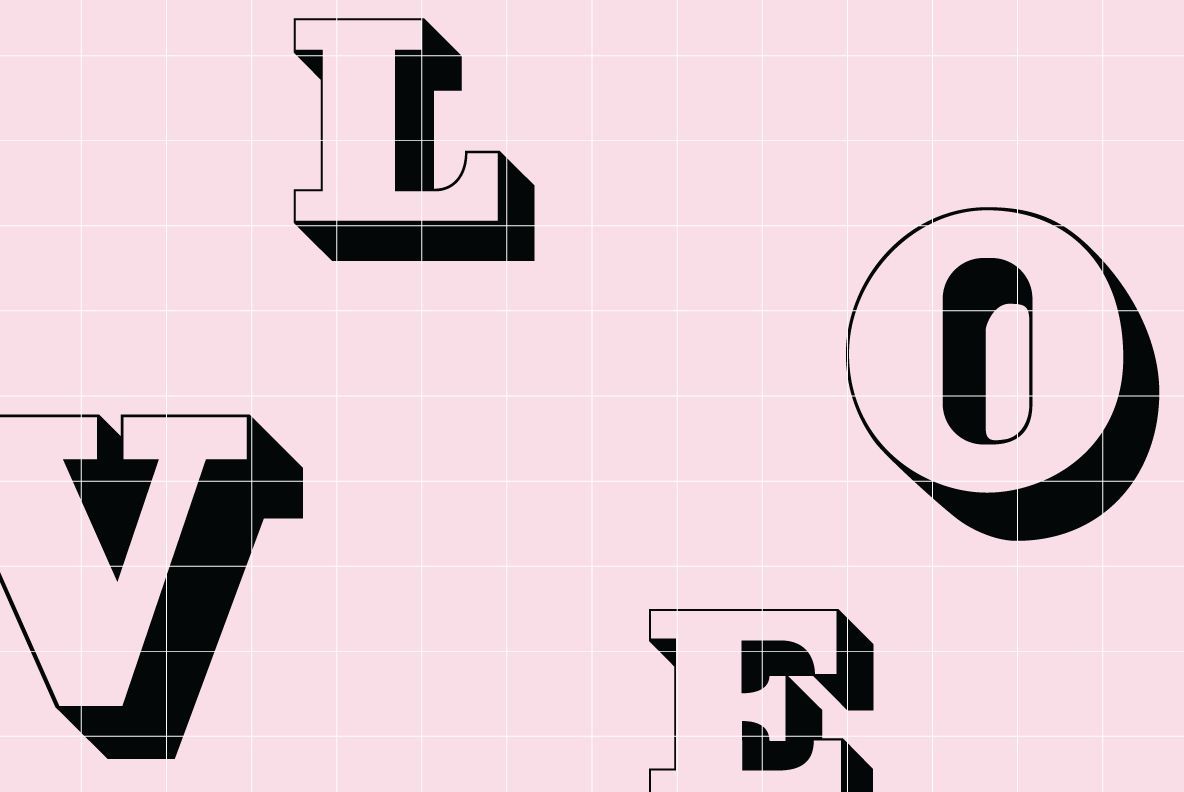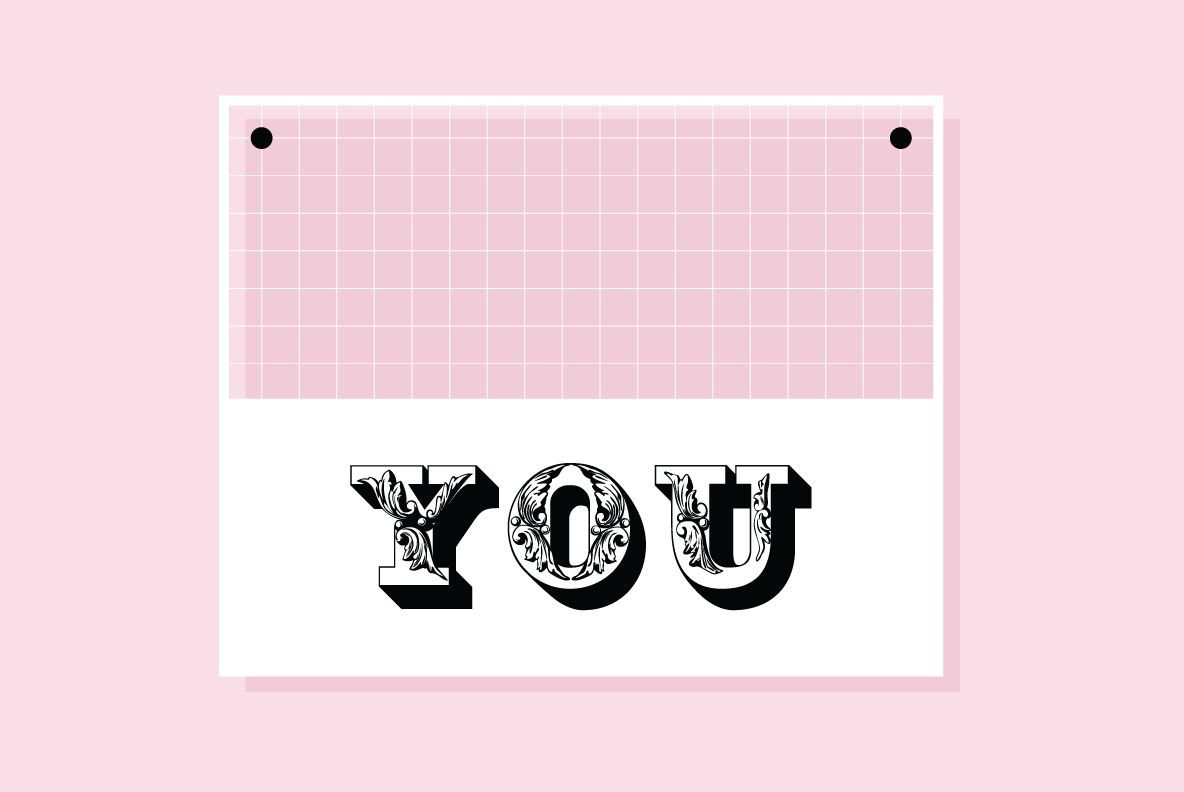
Fleurons Initials Font
Fleurons Initials
"Fleurons Initials" are a set of elegantly decorated blocked initials, reminding of old Jazz and Circus Posters.